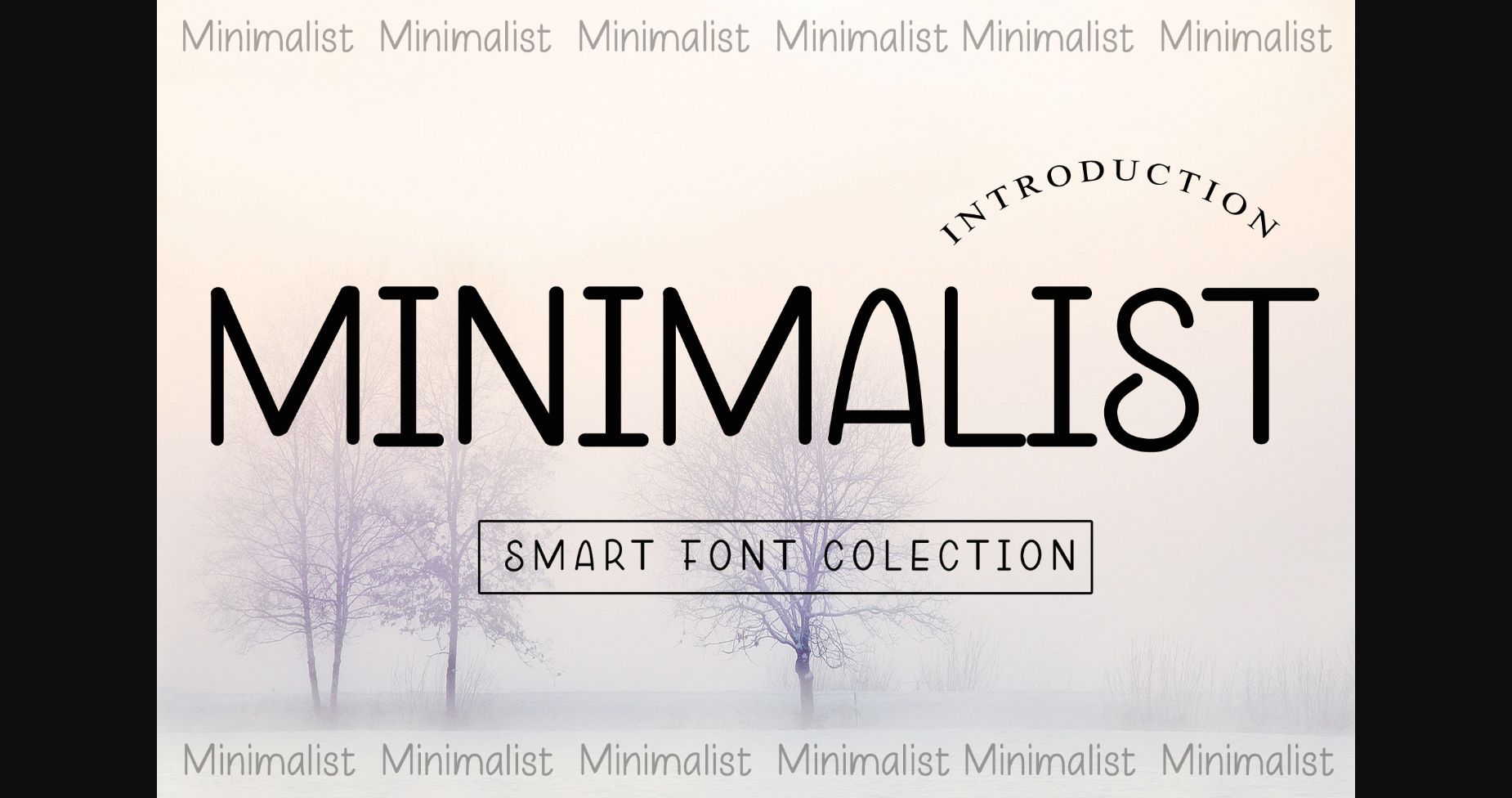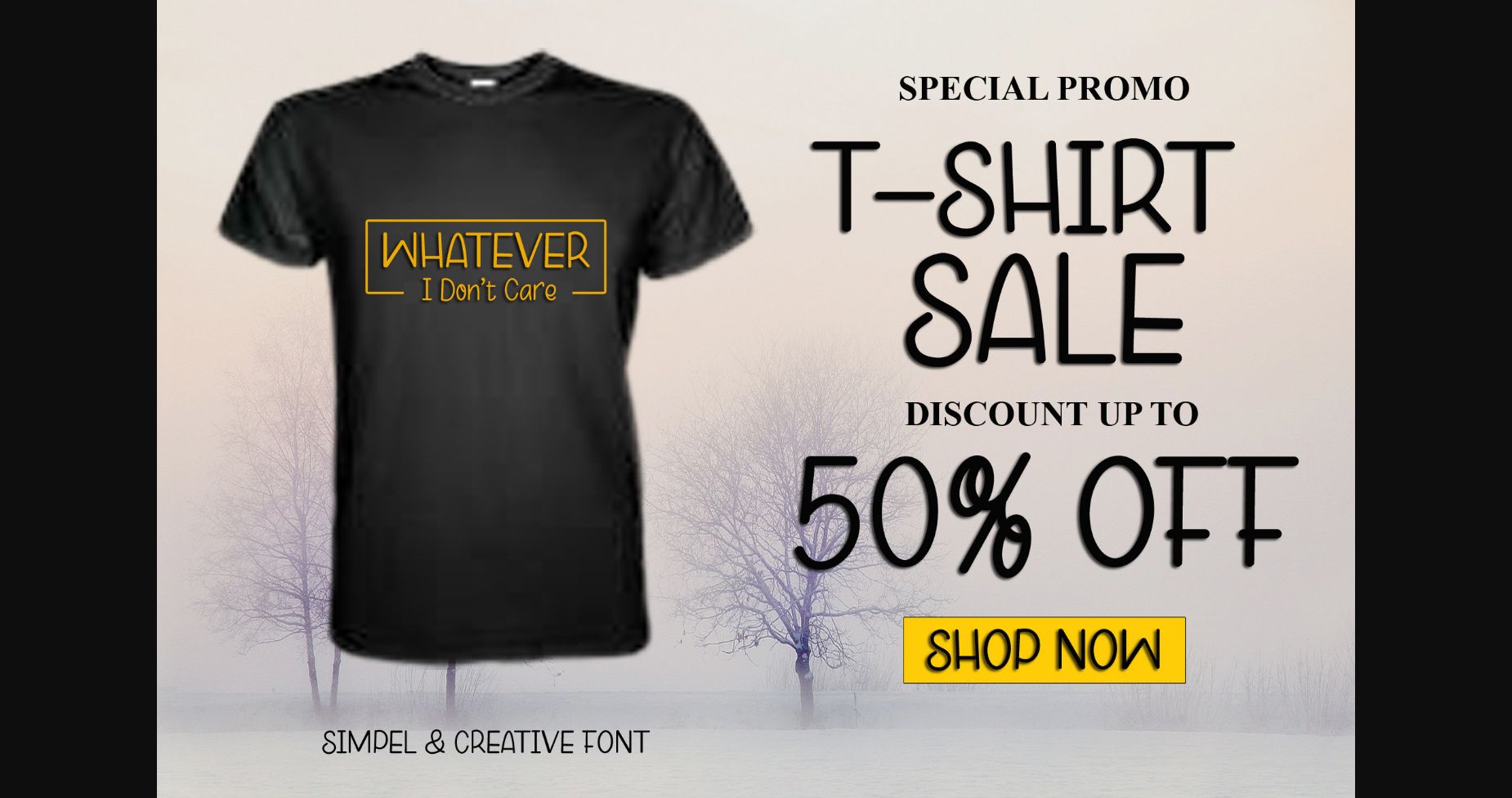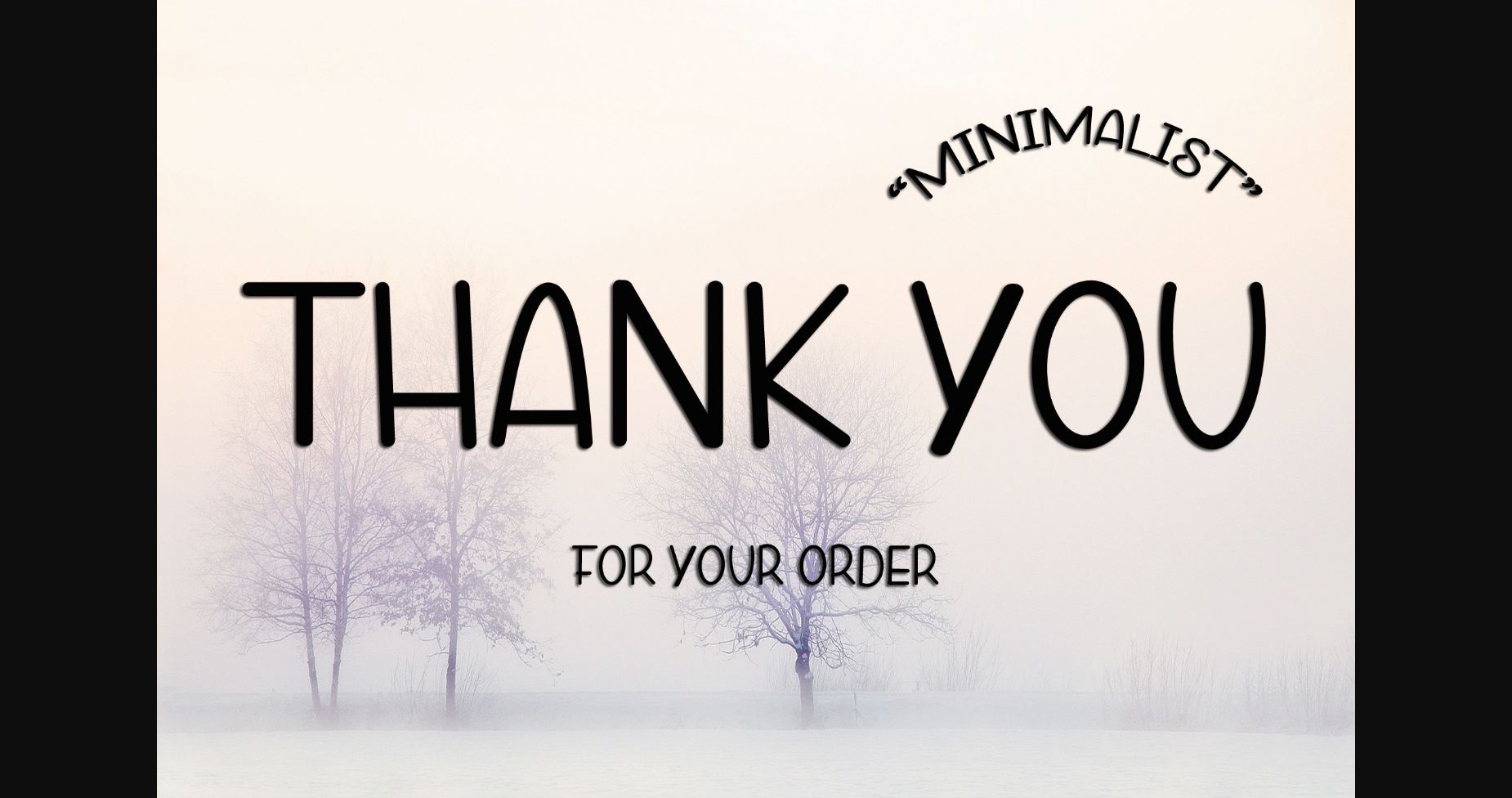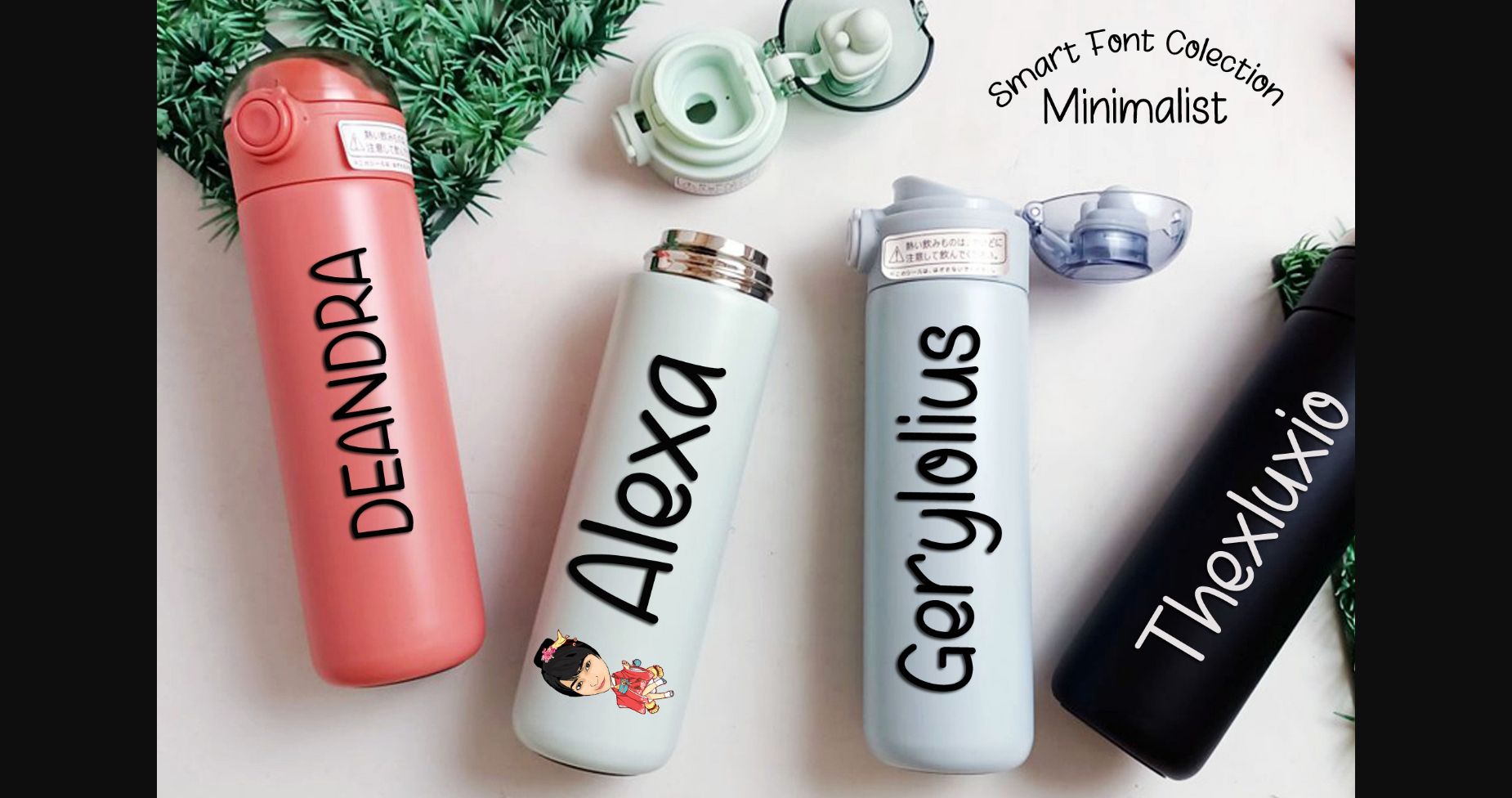
About Minimalist Font
Minimalist is a minimal and unique sans serif font. This font has the potential to become your favorite font of choice. It is perfect for logotypes, headline fonts, corporate identity, brand identity, the apparel industry, posters, music, games, magazines, books, comics, youtube, websites, or any other creative design project you have. can be easily matched to a very large set of projects,